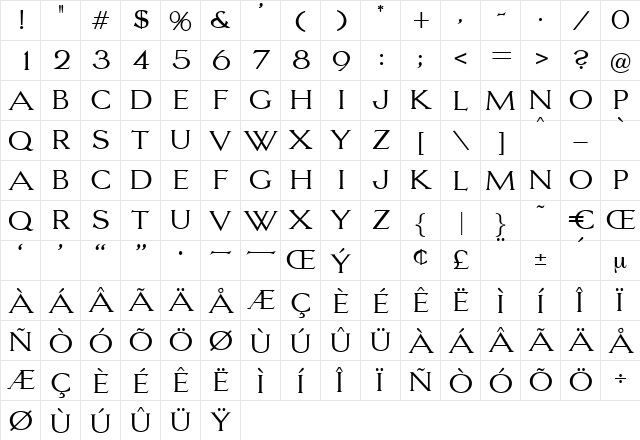
LaguneLight Regular
Design Context for LaguneLight Typeface
LaguneLight takes a measured approach to typography — its balanced proportions and neutral character make it a reliable workhorse for both digital and print work. The delicate stroke weight brings airiness and refinement to layouts.